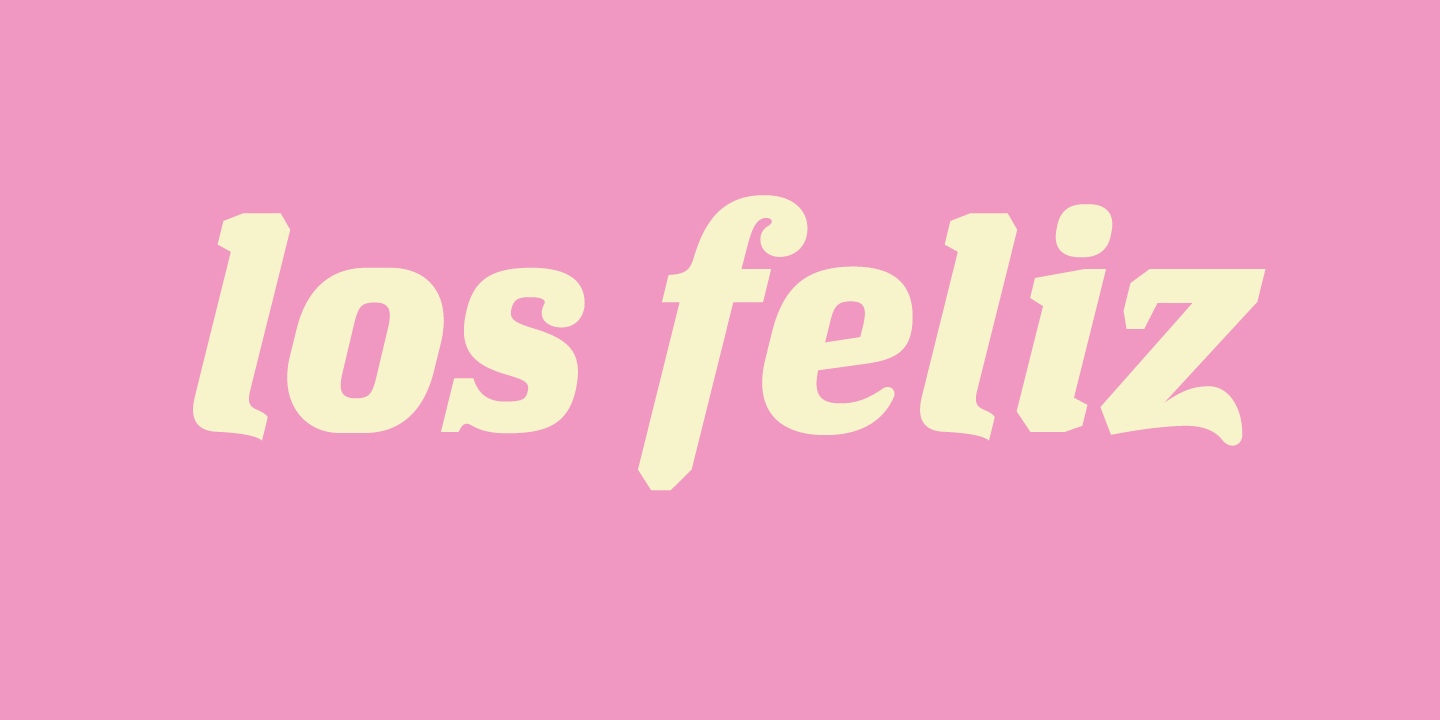
Los Feliz Font
Los Feliz Font is perfect for California lifestyle brands, trendy café identities, creative agency communications, modern boutique signage, artistic community promotions, and contemporary urban marketing. This stylish typeface excels in hipster coffee shop branding, Los Angeles entertainment venues, creative studio portfolios, and any application where artistic sophistication and West Coast cool create authentic connections with creative communities.
What makes Los Feliz Font so exciting is its remarkable ability to capture the effortless creativity and artistic spirit of Los Angeles's most vibrant neighborhoods through letterforms that embody California's unique blend of laid-back sophistication. The font features relaxed curves, artistic proportions, and creative character shapes that reflect the innovative energy of LA's creative scene. Its cool authenticity makes it perfect for brands that celebrate artistic expression and urban creativity.
Los Feliz Font comes in a creative family including Light, Regular, Medium, Bold, and Artistic weights. Each style features complete uppercase and lowercase character sets, creative symbols, artistic numerals, and urban punctuation marks. The font family also includes hipster alternates, creative ligatures, and California variations that allow designers to create authentic West Coast communications with artistic flair and professional polish.
This inspiring typeface transforms brand communications into celebrations of creative culture and artistic community. Los Feliz Font Free Download provides creative businesses and artistic brands with essential typography that honors California's creative spirit while serving contemporary urban communication needs. Whether you're developing brands for creative agencies, designing materials for artistic venues, or creating promotional content for California lifestyle businesses, this font delivers authentic artistic resonance with West Coast sophistication.
The font's creative character makes it particularly effective for art galleries, creative studios, trendy restaurants, and California lifestyle brands. Its relaxed readability ensures that Los Feliz Font communicates clearly while maintaining its distinctive artistic personality. The font's ability to evoke creativity and urban sophistication makes it an invaluable palette for any project seeking to celebrate artistic culture and connect with audiences through the timeless appeal of creative expression, California cool, and the inspiring energy of artistic communities.